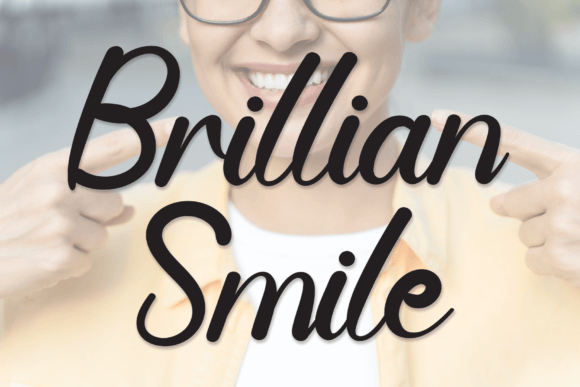
Brillian Smile Font
Prepare to be captivated by the enchanting Brillian Smile font, a captivating creation by William Jhody that will steal your heart. This delightful script font exudes warmth and charm, making it the perfect choice for expressing your heartfelt sentiments in style.
Imagine your cherished moments transformed into exquisite works of art, adorned with Brillian Smile's graceful strokes. Create captivating wedding invitations that will forever hold the memories of your special day, each word dancing across the page with an elegance that reflects the joy of your union. Let your cards carry heartfelt messages, penned with Brillian Smile's embrace, conveying emotions that transcend the boundaries of mere words.
The versatility of Brillian Smile extends beyond the realm of formal occasions. Its playful nature lends itself effortlessly to whimsical designs, adding a touch of magic to everything it graces. Unleash your creativity and let your imagination soar as you craft enchanting posters, eye-catching social media graphics, and captivating branding materials.
Step into a world where your words come alive, imbued with the captivating charm of Brillian Smile. Let this extraordinary script font be your faithful companion, guiding you through the labyrinth of expression with grace and allure. Experience the power of Brillian Smile today, and let your words dance with delight!